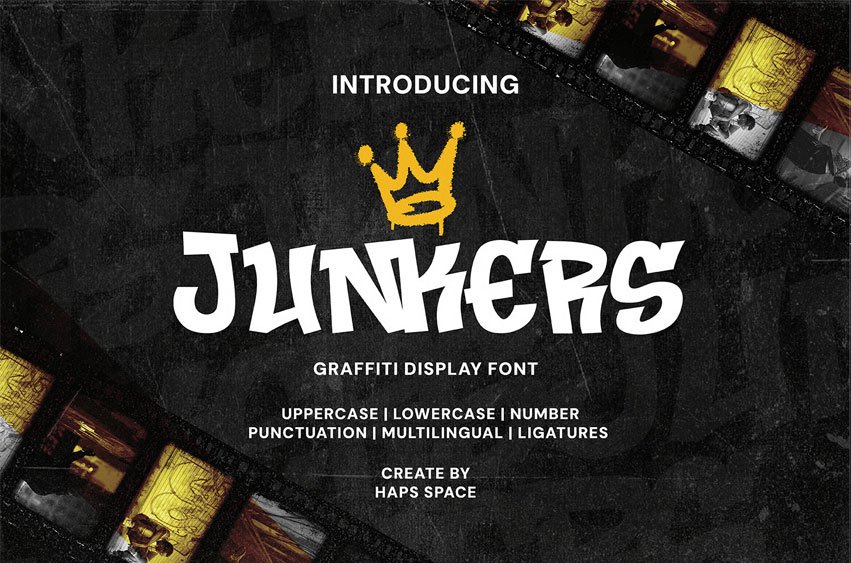
Junkers Font Graffiti Display is a bold and edgy display font inspired by urban street art and graffiti culture. Its raw, hand-drawn style captures the energetic and rebellious spirit of graffiti, making it perfect for designs that demand attention and convey a gritty, authentic vibe. With irregular strokes and dynamic shapes, Junkers Graffiti Display brings an expressive, underground feel to your creative projects.
Ideal for posters, album covers, streetwear branding, event flyers, and any design that wants to channel urban attitude and artistic freedom. This font supports uppercase letters, numbers, punctuation, and multilingual characters, providing flexibility for diverse uses. Whether you want to make a bold statement or add an artistic edge, Junkers Graffiti Display is your go-to font for urban-inspired creativity.
- Bold, hand-drawn graffiti style
- Energetic and rebellious urban vibe
- Uppercase letters with dynamic irregular strokes
- Full set of numbers and punctuation marks
- Multilingual support for extended use
- Perfect for posters, branding, streetwear, music, and event designs
- Adds authentic street art flair to any project